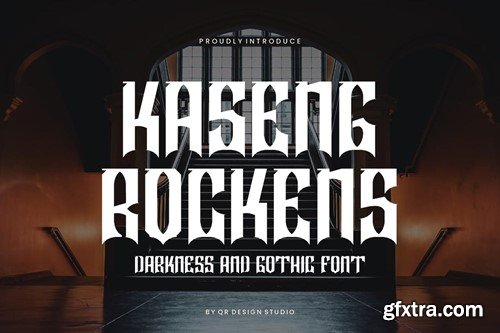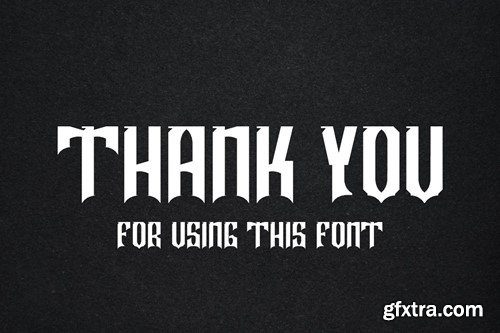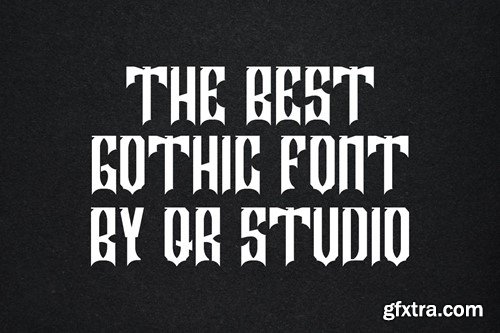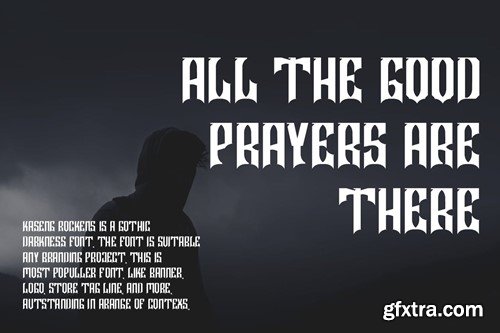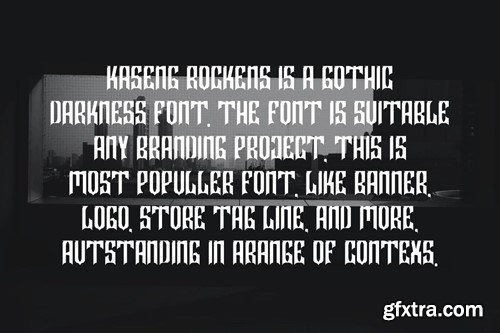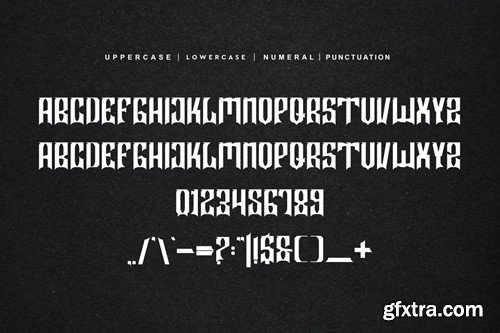
卡斯涅克·罗肯 - 哥特体及黑体文字字体 73RRQVH
Kaseng Rockens - Gothic & Blackletter Font 73RRQVH
Kaseng Rockens - Gothic & Blackletter Font
Kaseng Rockens Font is a Blackletter and authentic display font. The font is suitable for any branding project like poster, logo, sport, and many more. Outstanding in a wide range of contexts.